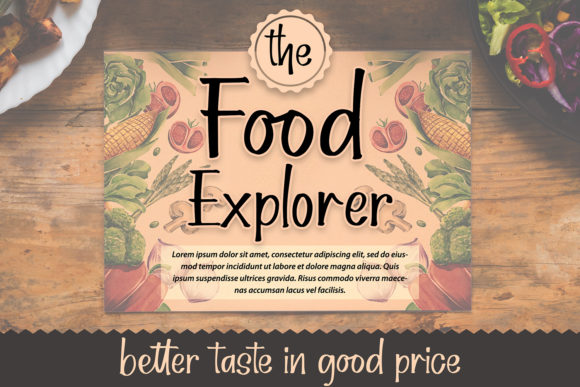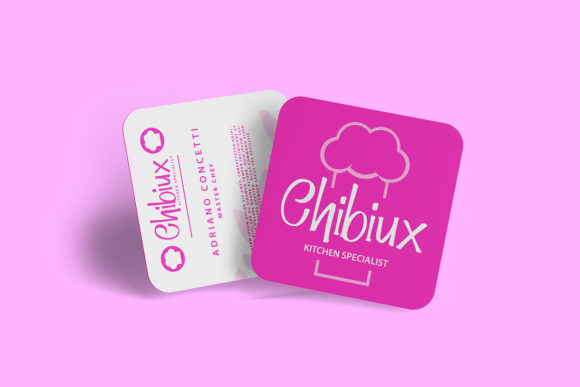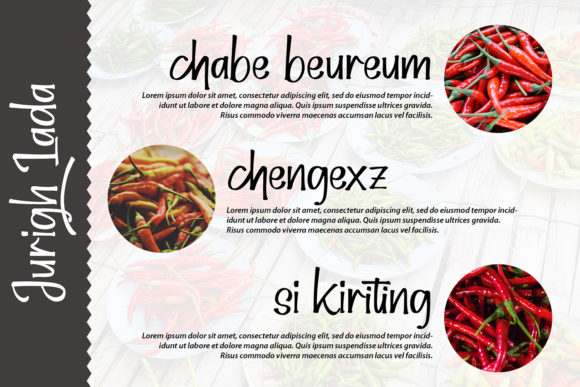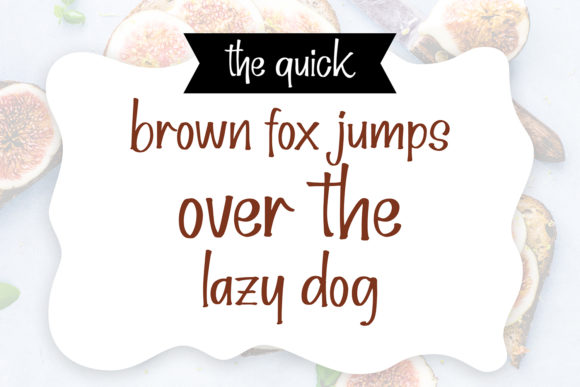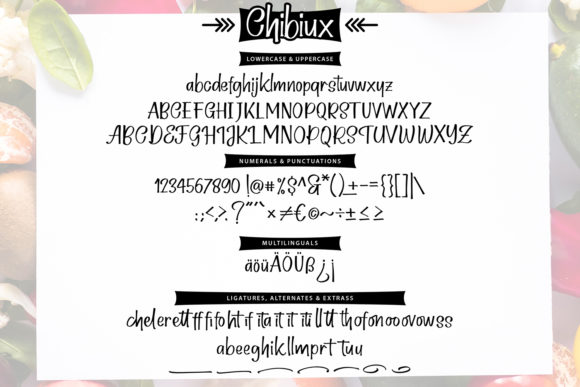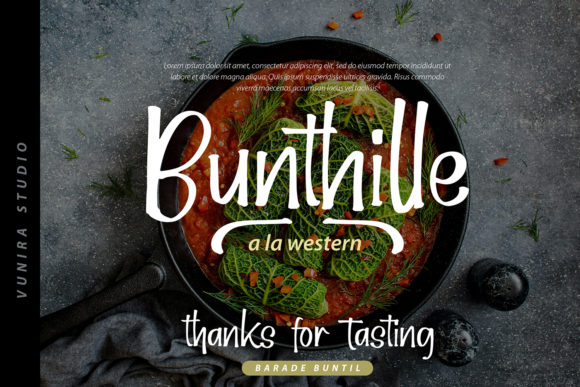
Introduction to Chibiux Font
As you sit down to work on your next creative project, the blank page stares back at you, begging for inspiration. Suddenly, the perfect font pops into your head – something playful, yet professional, with a touch of whimsy that will bring your design to life. Enter the Chibiux Font, a sweet and friendly handwritten font that’s sure to be the perfect addition to your design resource.
With its natural and unique style, the Chibiux Font is incredibly versatile, making it a valuable asset for designers of all levels. Whether you’re working on a project that requires a high-quality, custom look or simply need a reliable font for a free download, the Chibiux Font is sure to deliver. And with its transparent background, you can easily layer it over other design elements to create a cohesive and eye-catching look.
Key Features of Chibiux Font
- Unique, hand-drawn design with a minimalist aesthetic, ideal for creative projects and design resources.
- Includes a transparent background, allowing for easy customization and layering in design projects.
- High-quality font with precise details and smooth lines, perfect for print and digital design applications.
- Perfect for use in logos, typography, and other design elements, adding a touch of whimsy and creativity to any project.
Honest Review: Chibiux Font
- ✨ Unique and quirky design aesthetic that adds a playful touch to any project.
- ✨ Highly versatile and can be used for a wide range of creative projects, from illustrations to graphics and more.
- ✨ Supports a transparent background, making it easy to layer over images or other design elements.
- ⚠️ Limited character set and support for only a few languages.
- ⚠️ Some users may find the font a bit too stylized or overwhelming, depending on their design style.
Overall, I’m impressed with the Chibiux Font’s potential and would recommend it to designers looking for a fun and creative solution for their next project. With a little bit of creative experimentation, this font can really shine and add some much-needed personality to your designs.
The Chibiux Font is ideal for various creative projects, including graphic design, digital art, and even web design. Its high-quality output and versatility make it a popular choice among designers and artists.
Can I customize the Chibiux Font to fit my design needs?
Yes, the Chibiux Font is highly customizable. You can adjust the font size, style, and color to suit your design requirements. Additionally, you can also use the font in conjunction with other design elements, such as images or graphics, to create a unique visual identity for your project.